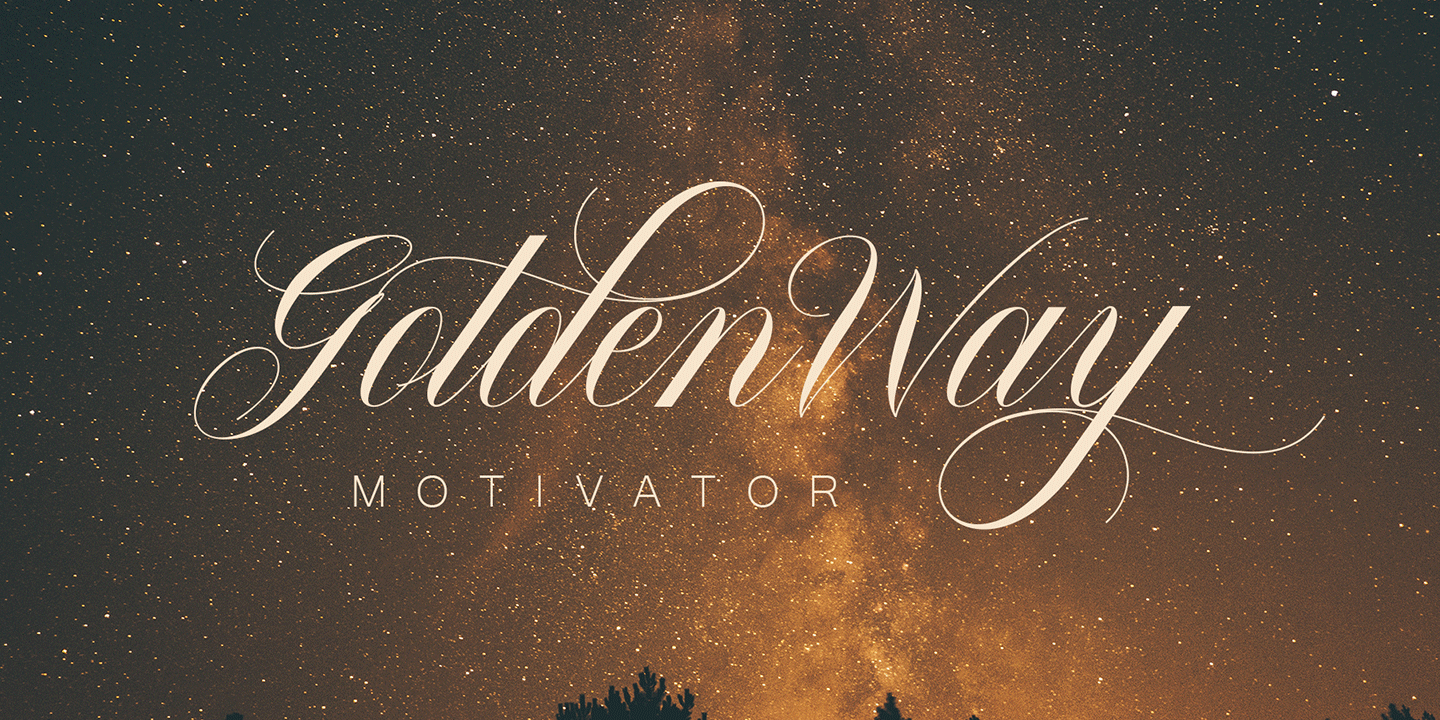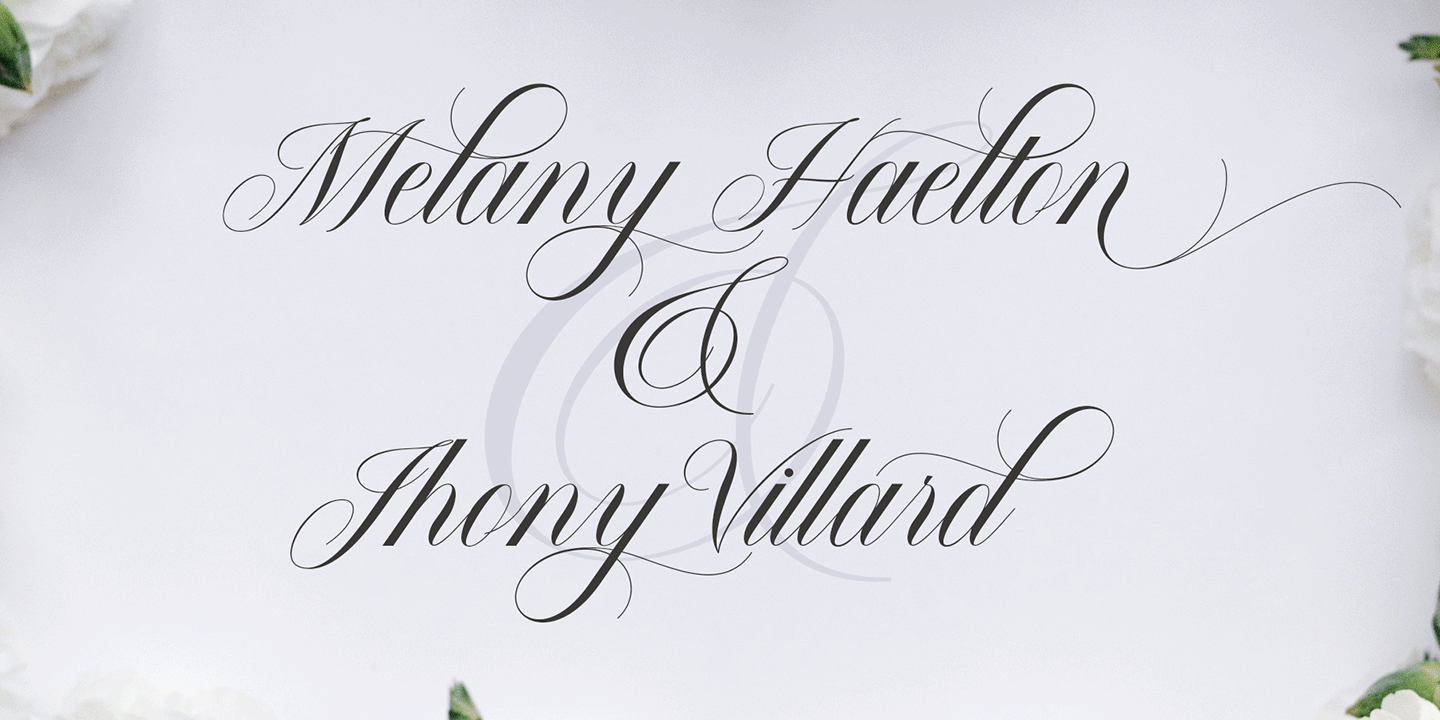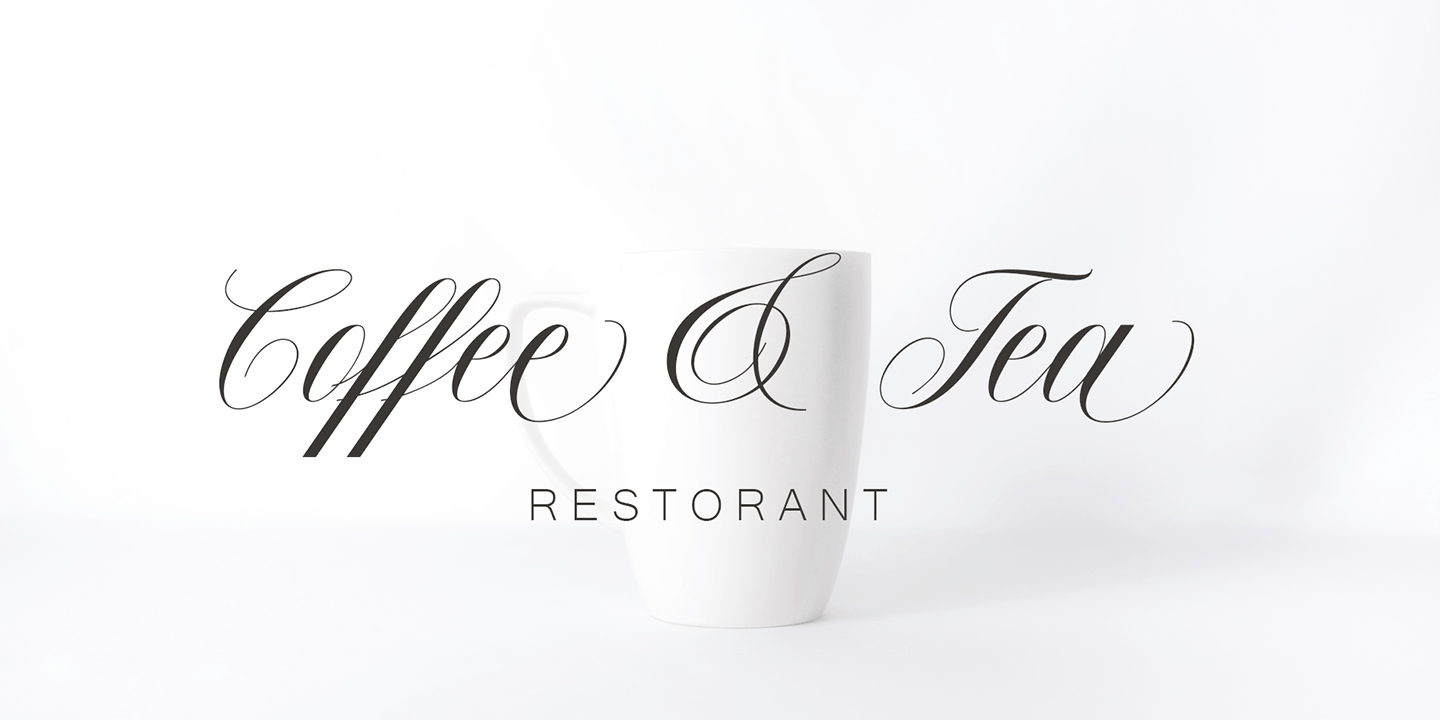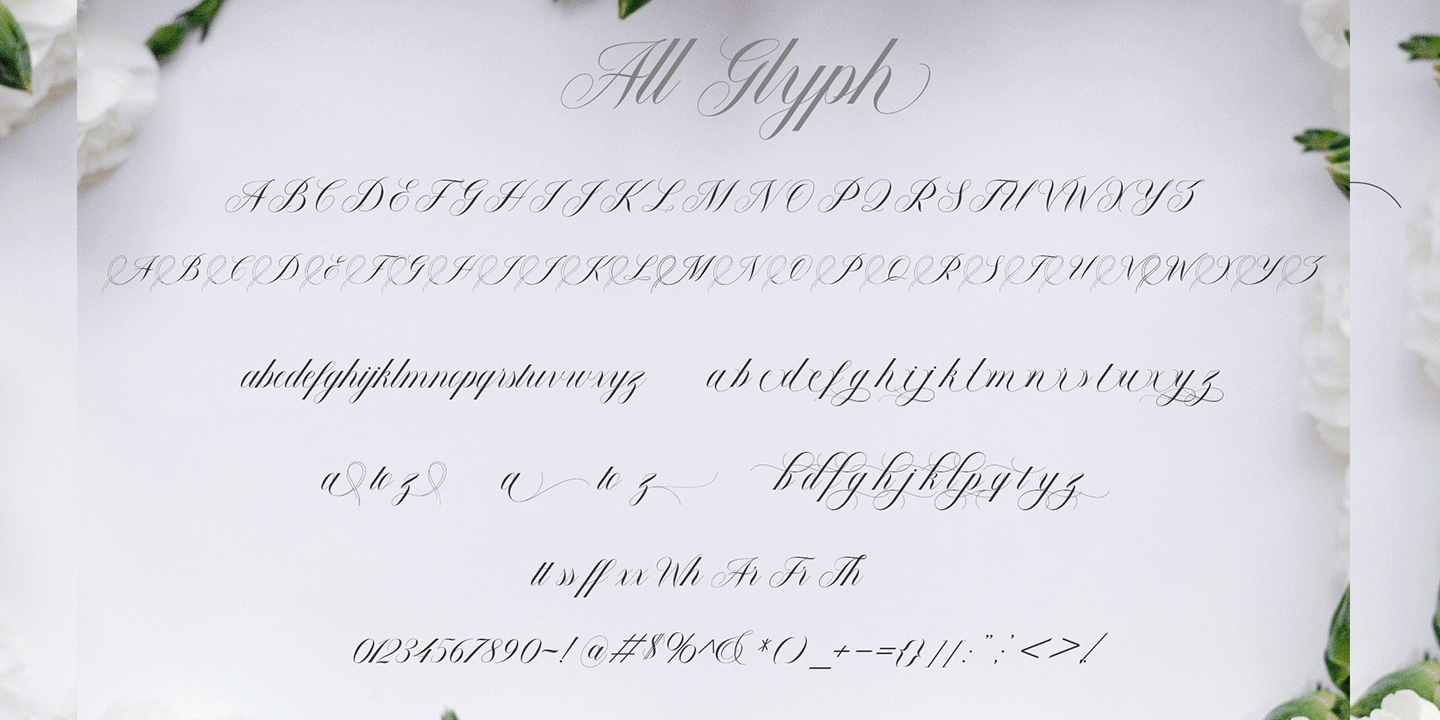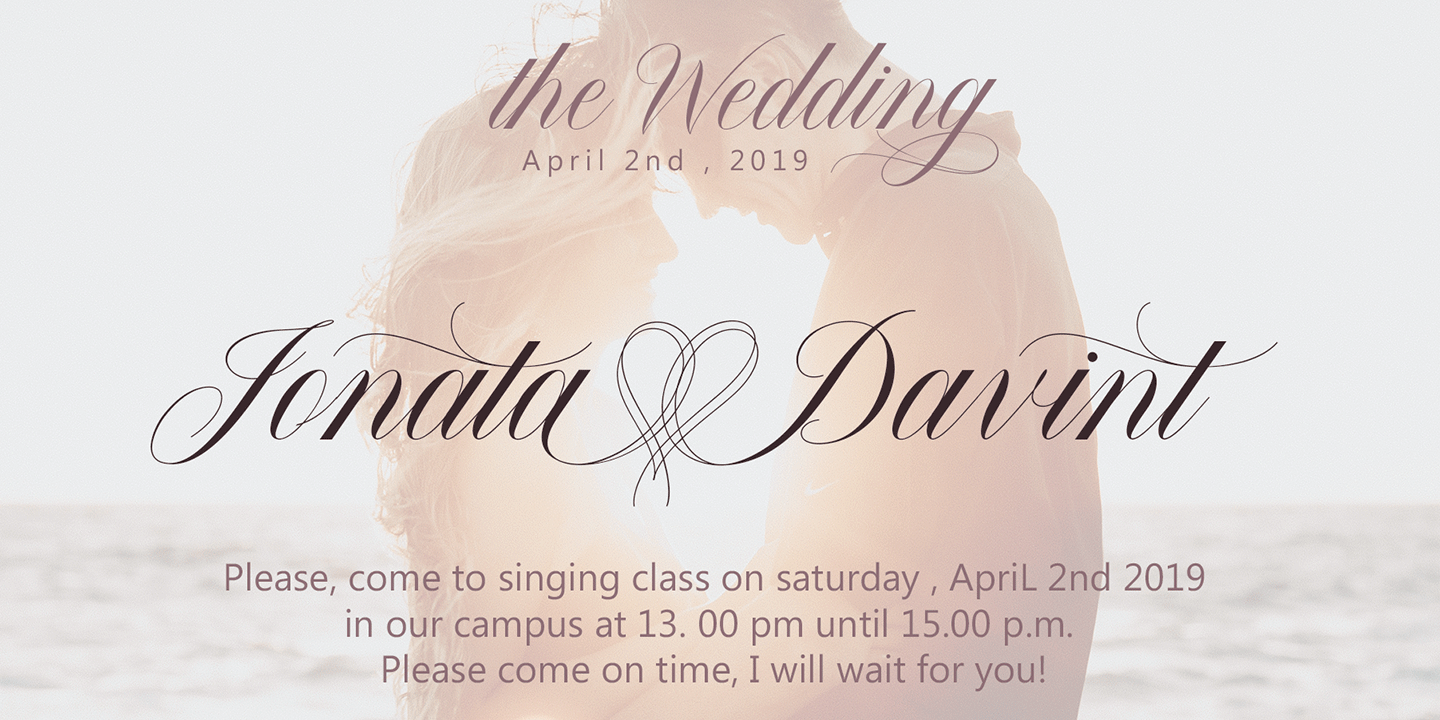
Malvina
Malvina is a font scrip, so, font script that is beautiful and unique, it is a model of modern calligraphy typefaces, in combination with a calligraphy writing style.
The Features of this fonts is:
- Swash Alternates
- Standart ligatures
- Stylistic Alternates
- Stylistic sets